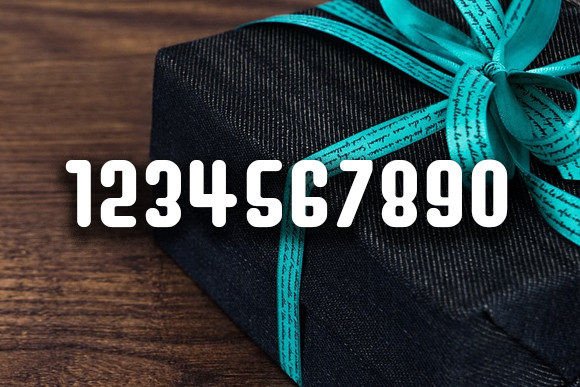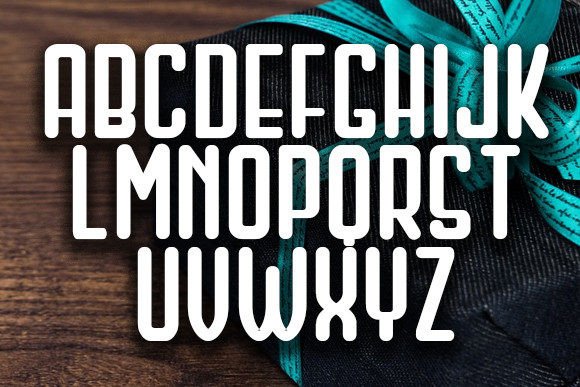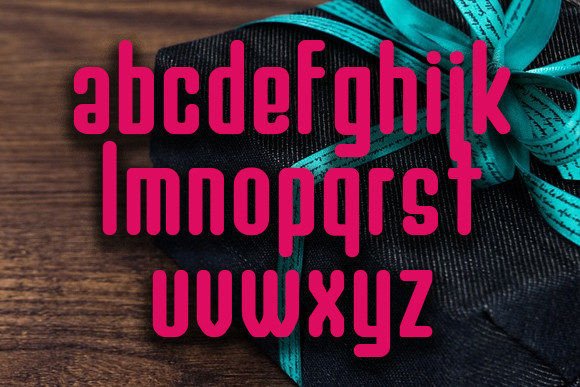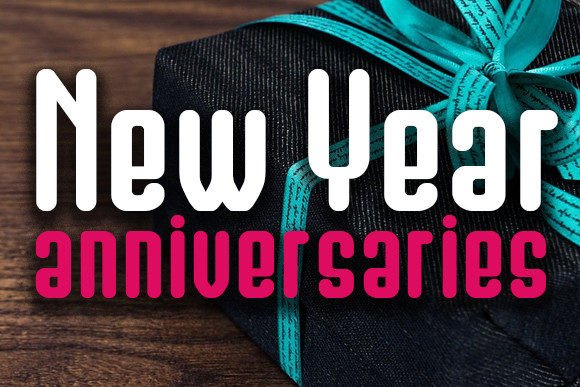
Introduction to Daily Gifts Font
Remember that moment when you’re brainstorming ideas for a new project and you stumble upon the perfect font that sets the tone for the entire design? For many creatives, it’s a moment of pure excitement and joy. And for those who are about to discover the Daily Gifts Font, that moment is just around the corner.
As a designer, you’re always on the lookout for that special something that elevates your work from good to great. The Daily Gifts Font is that something. With its high-quality, playful design, it’s the perfect addition to any creative project. Whether you’re working on a social media campaign, a poster, or a website, this font is sure to bring a smile to your audience’s face. And the best part? It’s available for free download, making it a valuable design resource for any project.
Key Features of Daily Gifts Font
- High-quality, unique glyphs for creative projects, including illustrations and graphics.
- Designed to be highly legible, even at small sizes, making it perfect for digital and print applications.
- Includes a range of weights and styles, allowing you to customize the look and feel of your project to suit your needs.
Honest Review: Daily Gifts Font
As a designer, I’m always on the lookout for high-quality design resources that can elevate my creative projects. The Daily Gifts Font is one such resource that caught my attention, and I’m excited to share my honest review with you.
What works well: ✨ The Daily Gifts Font is incredibly versatile, making it a great addition to any design project. The font is highly customizable, allowing you to adjust the size, color, and style to suit your needs. The transparent background feature is also a huge plus, making it easy to integrate with any design element.
What’s not so great: ⚠️ While the font is free to download, the selection of styles and weights is limited. This might be a drawback for designers who are looking for a more extensive range of options.
Here are some key features of the Daily Gifts Font:
- High-quality design with a transparent background
- Customizable size, color, and style
- Great for creative projects, logos, and branding
Overall, I’m impressed with the Daily Gifts Font. While it has some limitations, its versatility and high-quality design make it a valuable addition to any design resource collection.
Some tips for getting the most out of the Daily Gifts Font include using it on a transparent background to add depth to your design, and experimenting with different font sizes and colors to create a unique look. Common use cases for the Daily Gifts Font include creating invitations, brochures, and social media graphics.